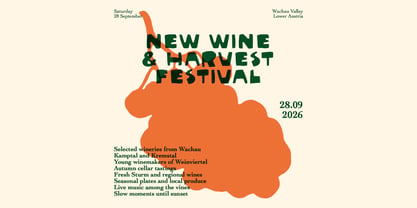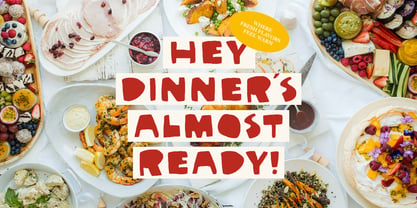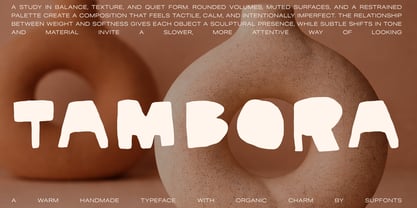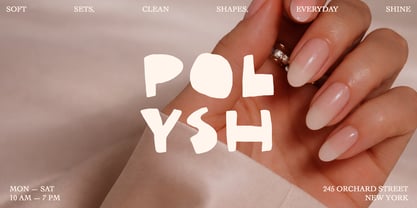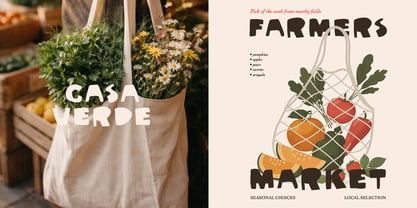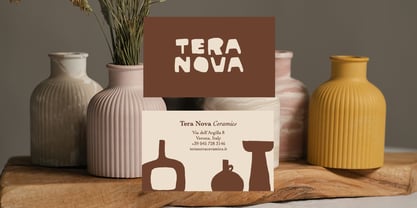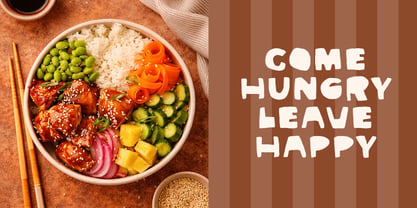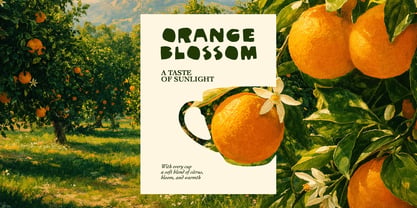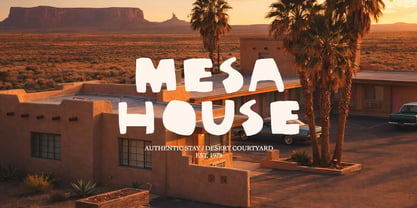
Tambora
by Supfonts
The Tambora Font Family was designed by Dmitrii Chirkov and published by Supfonts. Tambora contains 1 styles. More about this family
Tambora is a warm, playful handmade display font created for designers who want typography with real character. Inspired by cutout shapes, imperfect forms, and tactile visual language, it brings a soft organic charm to branding, packaging, posters, and editorial projects. Its bold silhouette and friendly personality make it especially suitable for food concepts, ceramic studios, farmers markets, cafés, seasonal campaigns, artisanal products, and lifestyle brands that need a more human and expressive tone. Tambora works beautifully in headlines, logos, labels, social media graphics, and creative layouts where a polished but not overly perfect look makes all the difference. The font package also includes multilingual support covering a wide range of European languages, making it a versatile choice for international branding and design work.